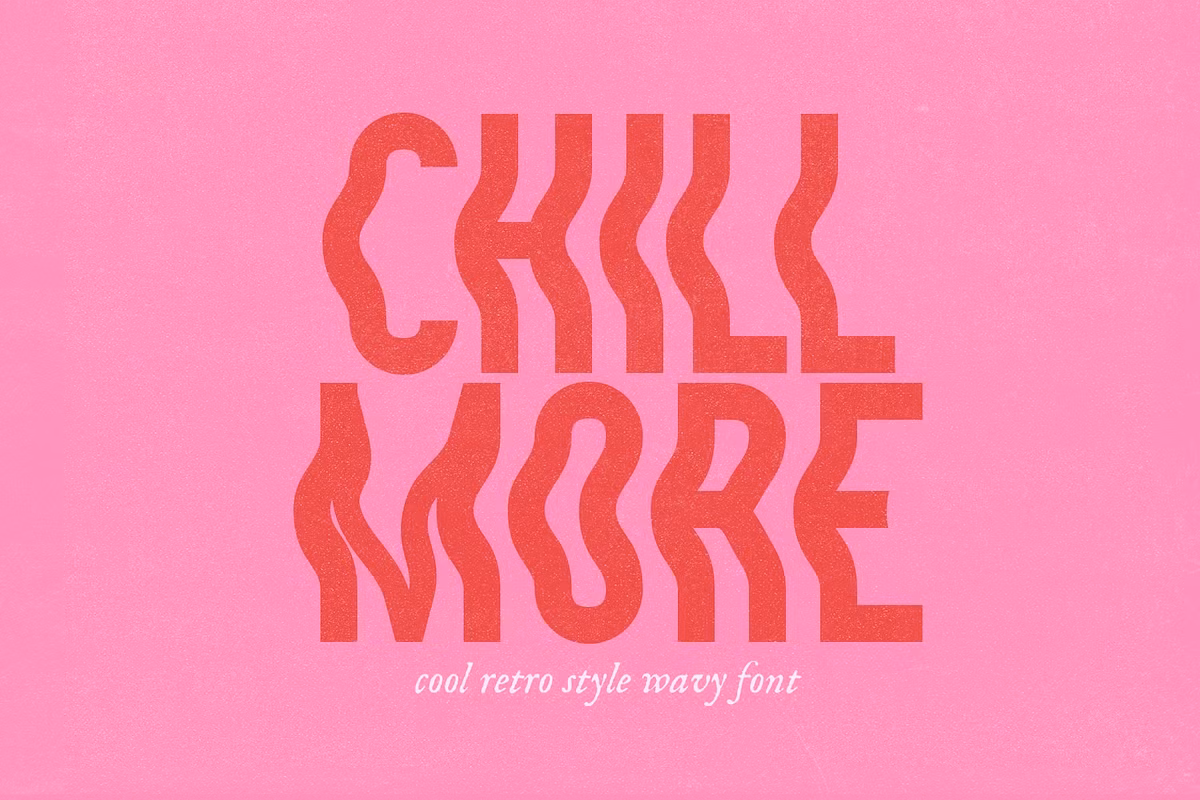
Chill More | Wavy Sans Font Free Download
Playful with a modern twist, Chill More | Wavy Sans Font Free Download is a fun and eye-catching typeface that brings movement and personality to your designs. With its subtle wave-like curves and smooth sans-serif structure, this font is perfect for creative branding, youth-focused campaigns, lifestyle blogs, and quirky merchandise designs.
Its unique wavy style adds a refreshing energy to your text while still maintaining readability and versatility. Whether you're designing bold headlines, casual social media posts, or trendy product labels, Chill More delivers a stylish and dynamic look that stands out.